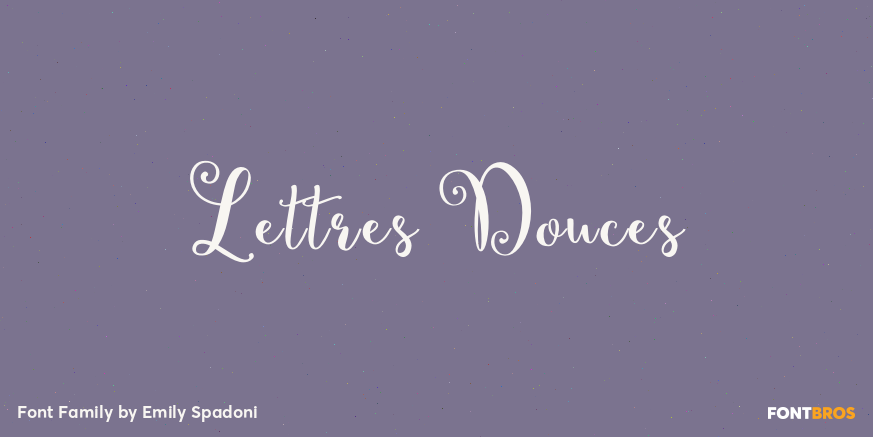
About Lettres Douces
Introducing lettres douces! A soft and sweet hand-lettered typeface. Hand drawn characters dance along the baseline. You\’ll have so much fun creating your own hand-lettered text syles. The combinations of sweet swirly letters are endless. There\’s alot…